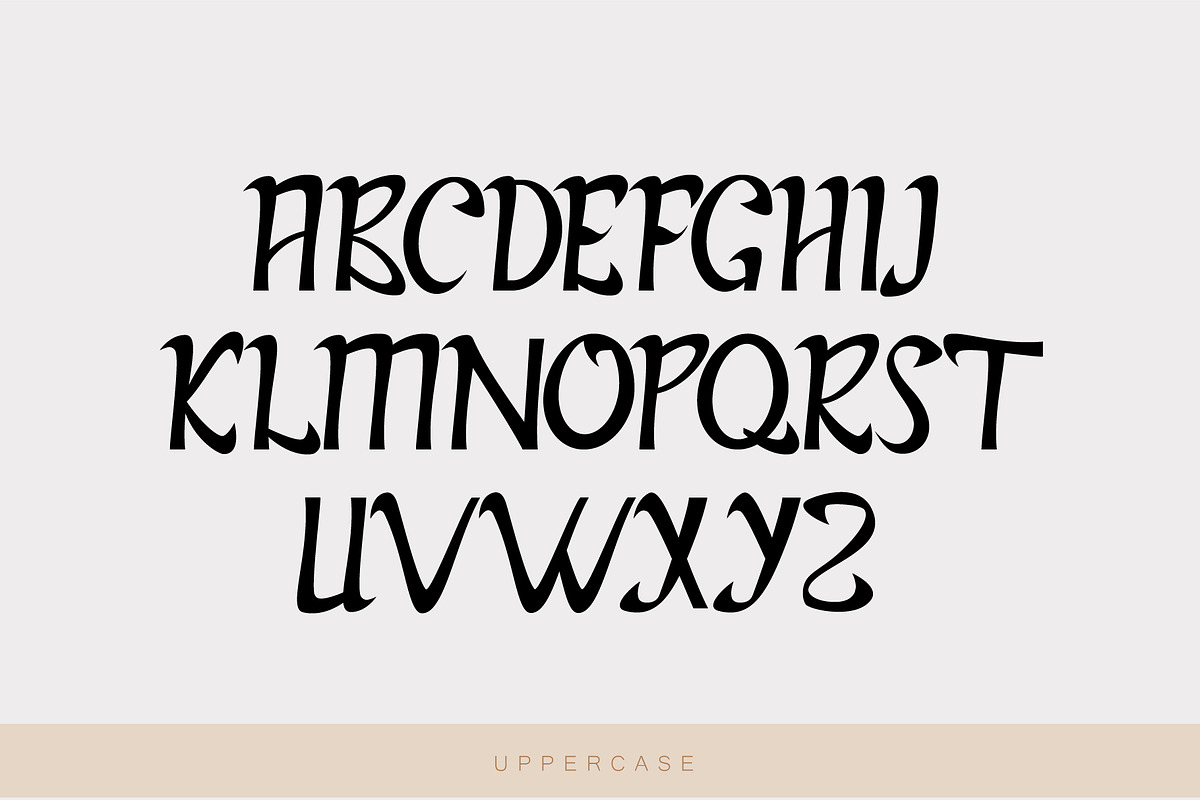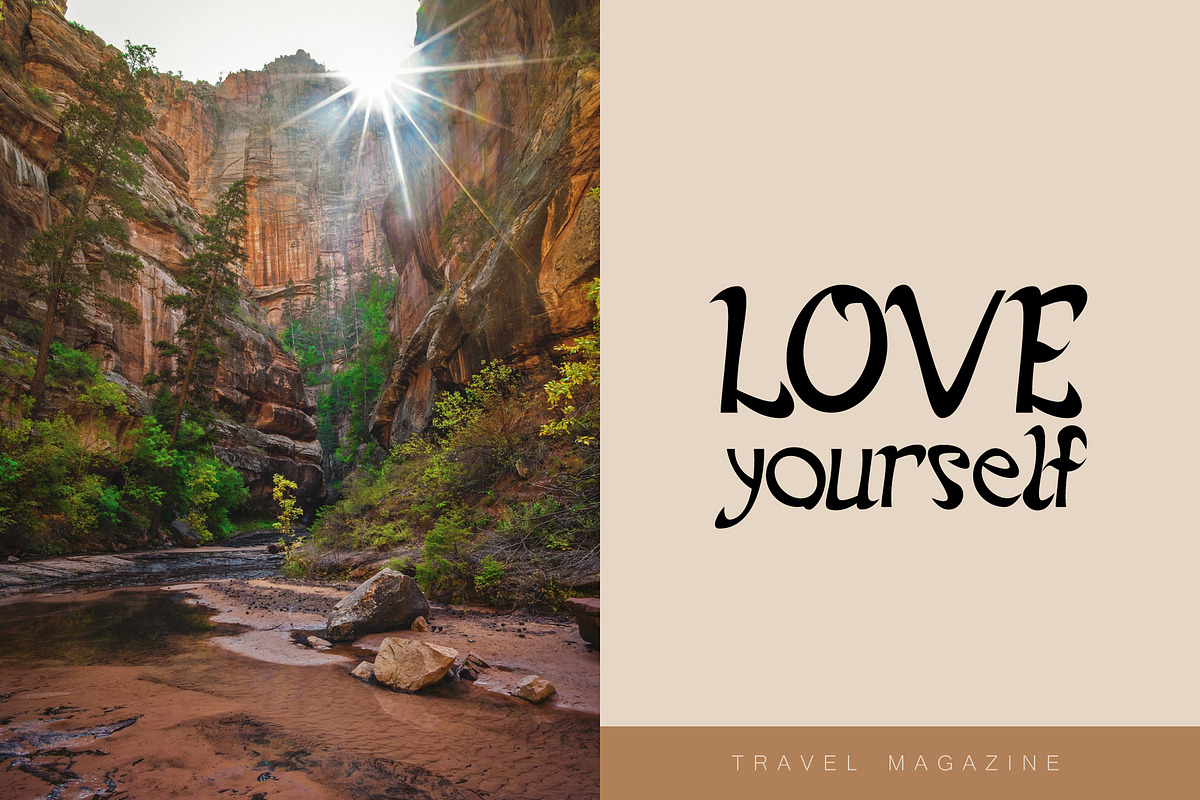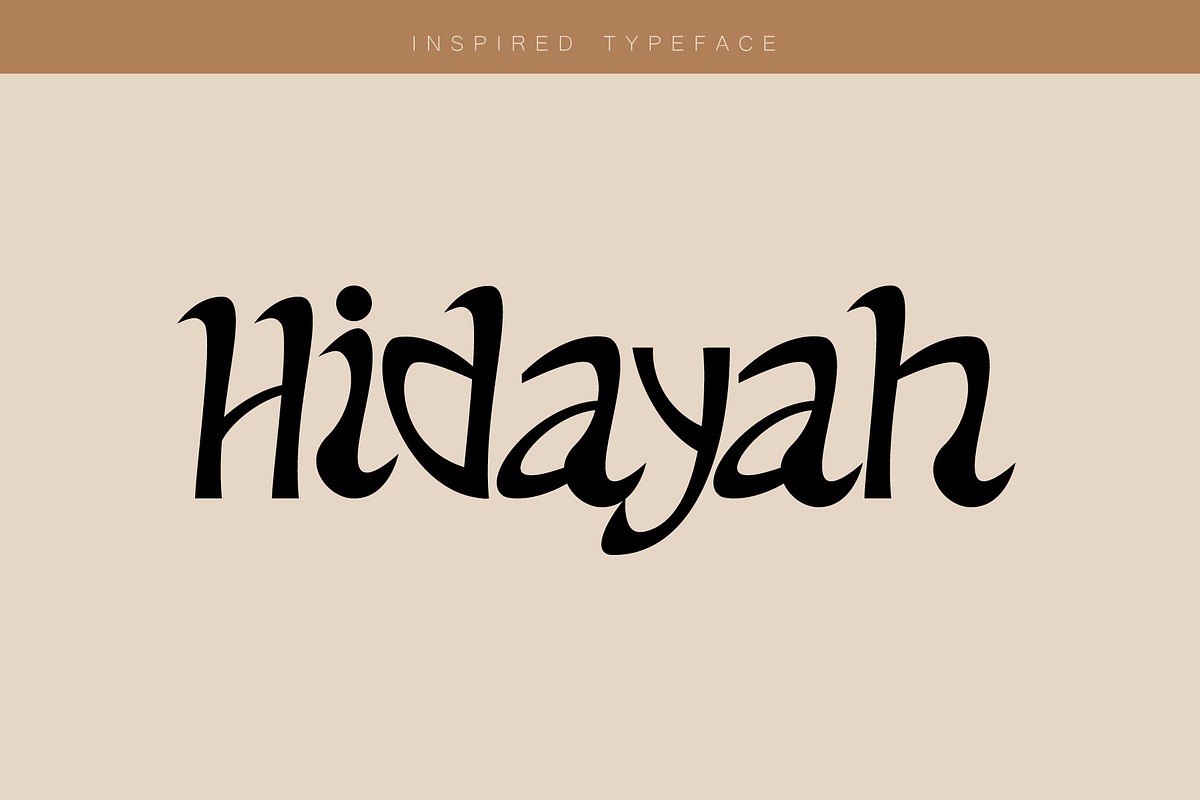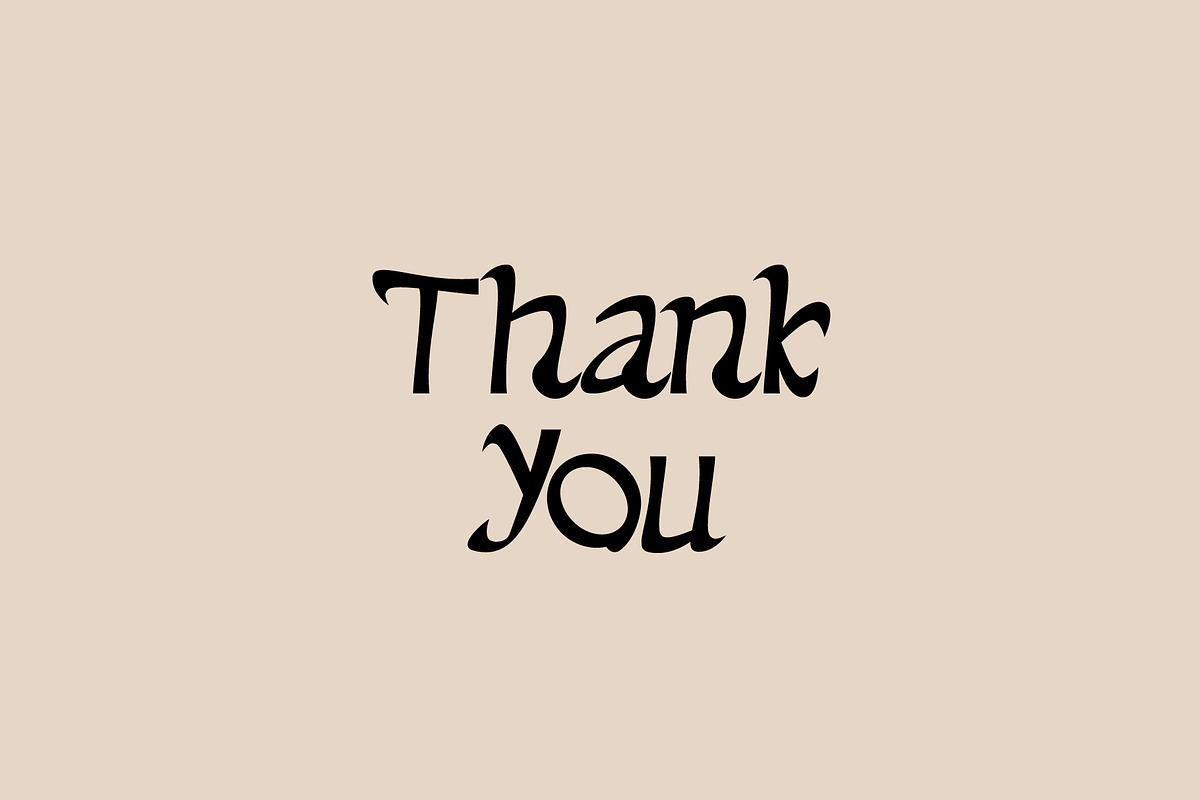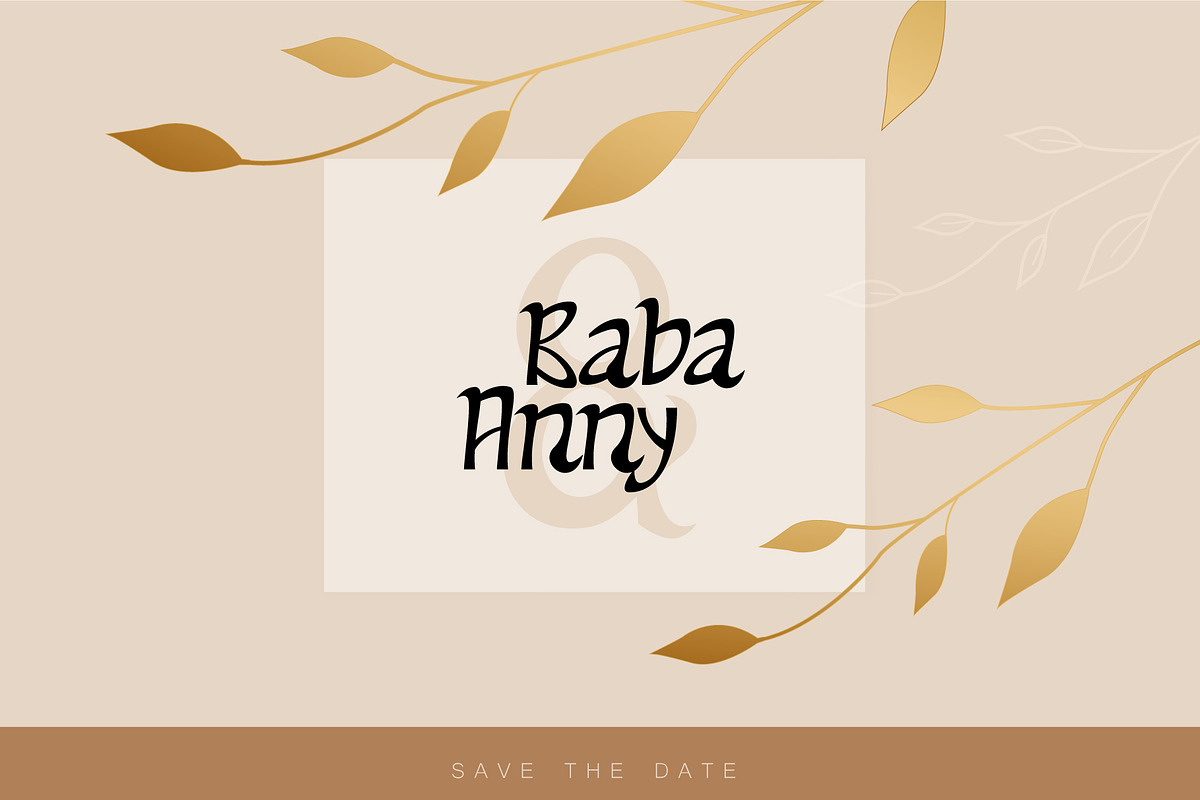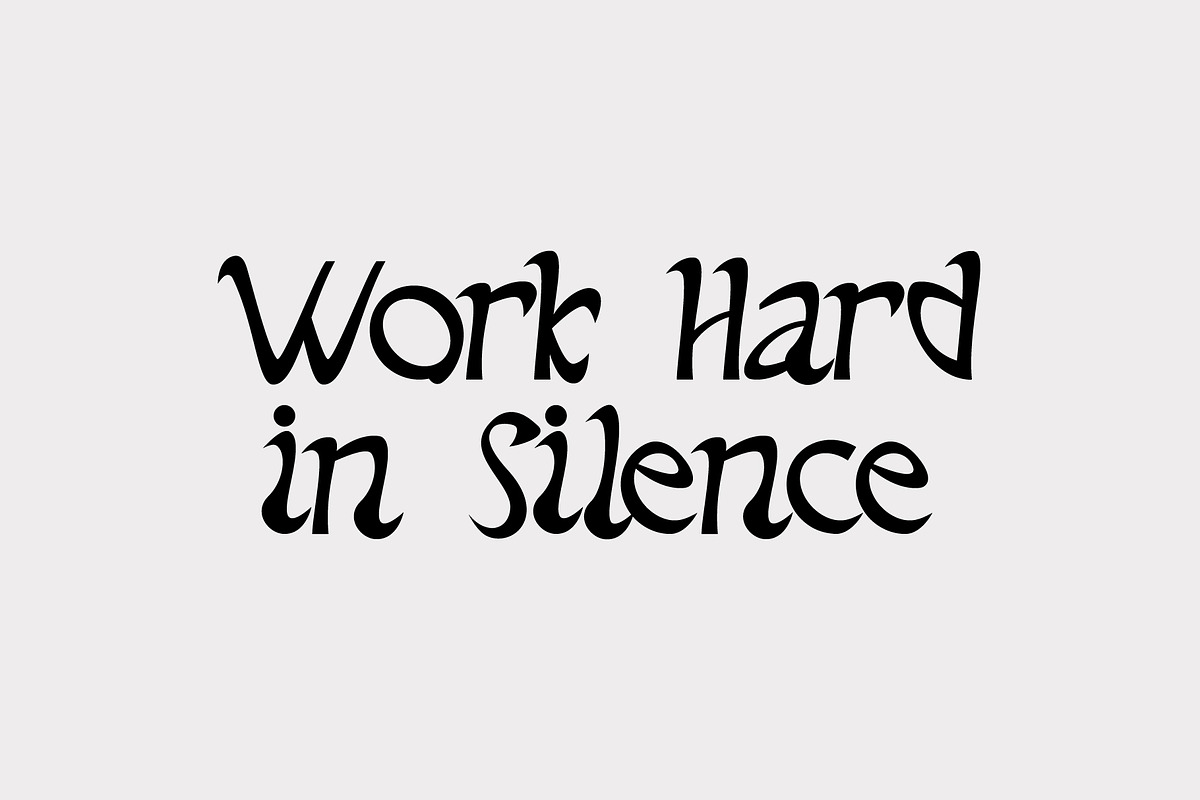
hidayah font
Hidayah Font by faisalovers is a font selected for branding, posters, packaging, typography.
Why hidayah font is worth a look
hidayah font by khalwa.studio fits naturally into Branding, posters, packaging, typography.